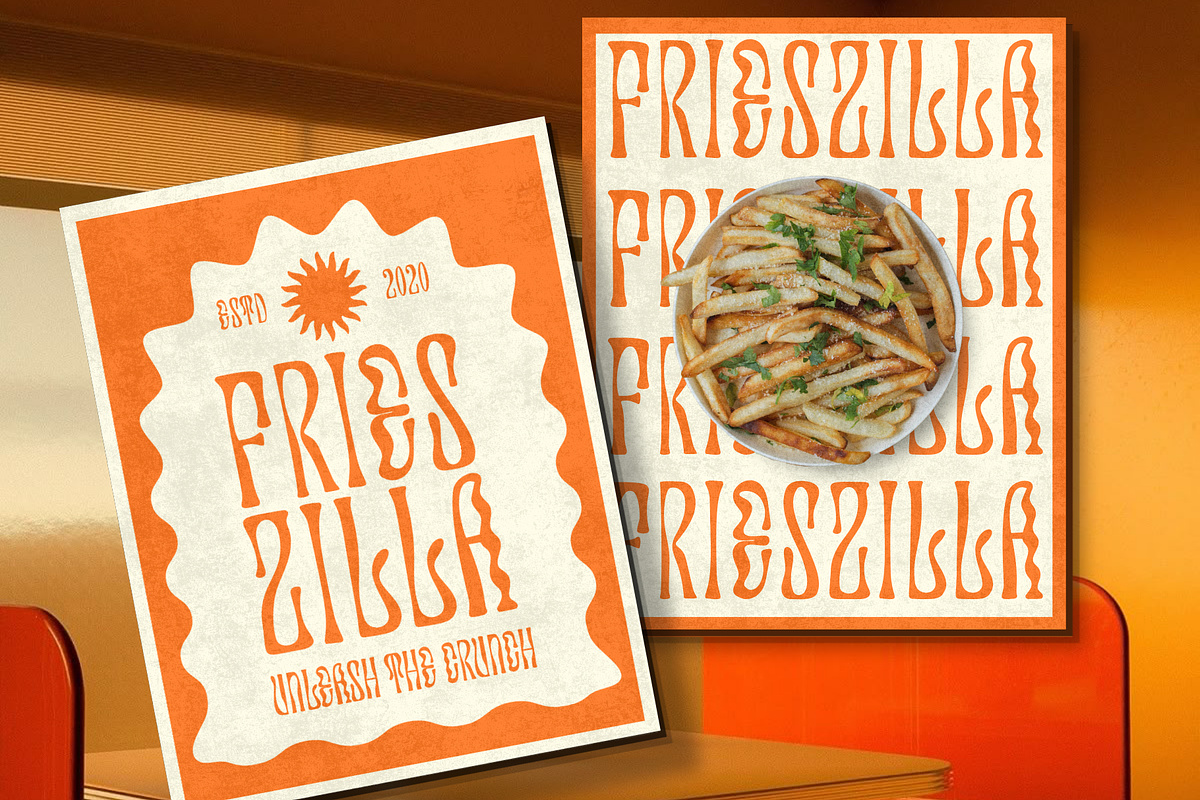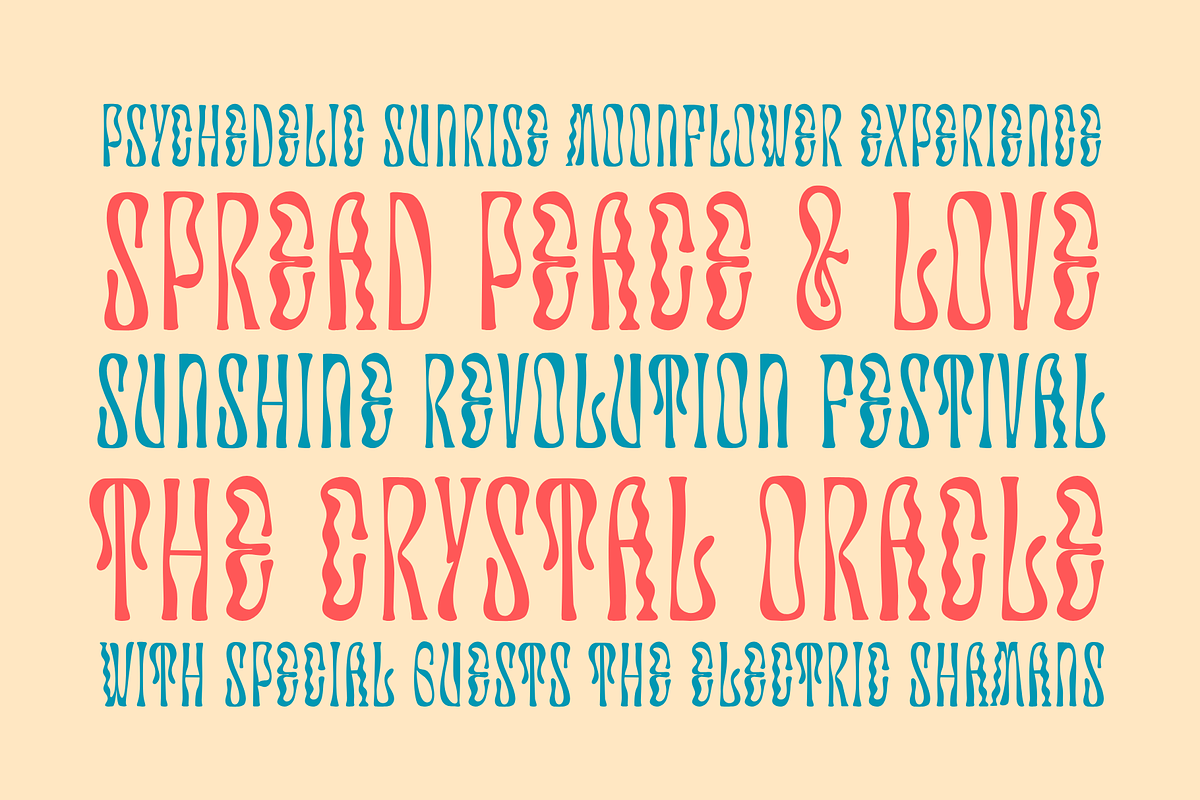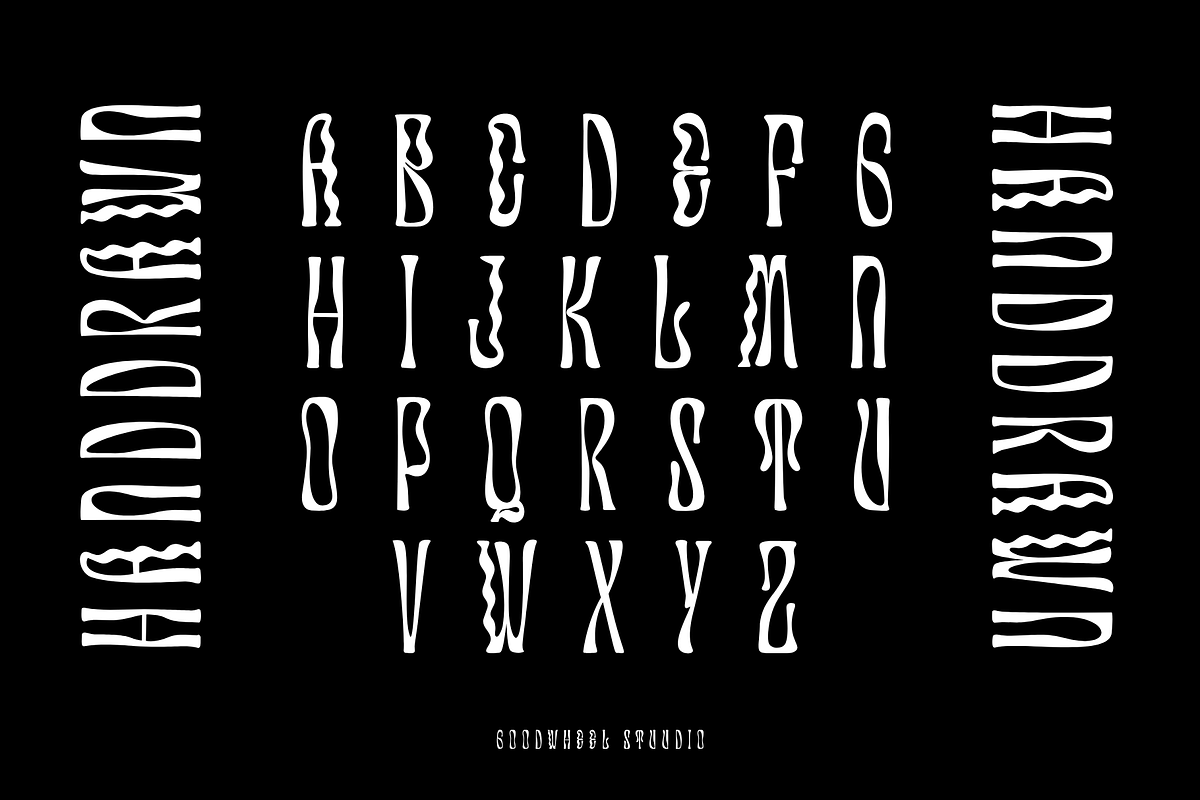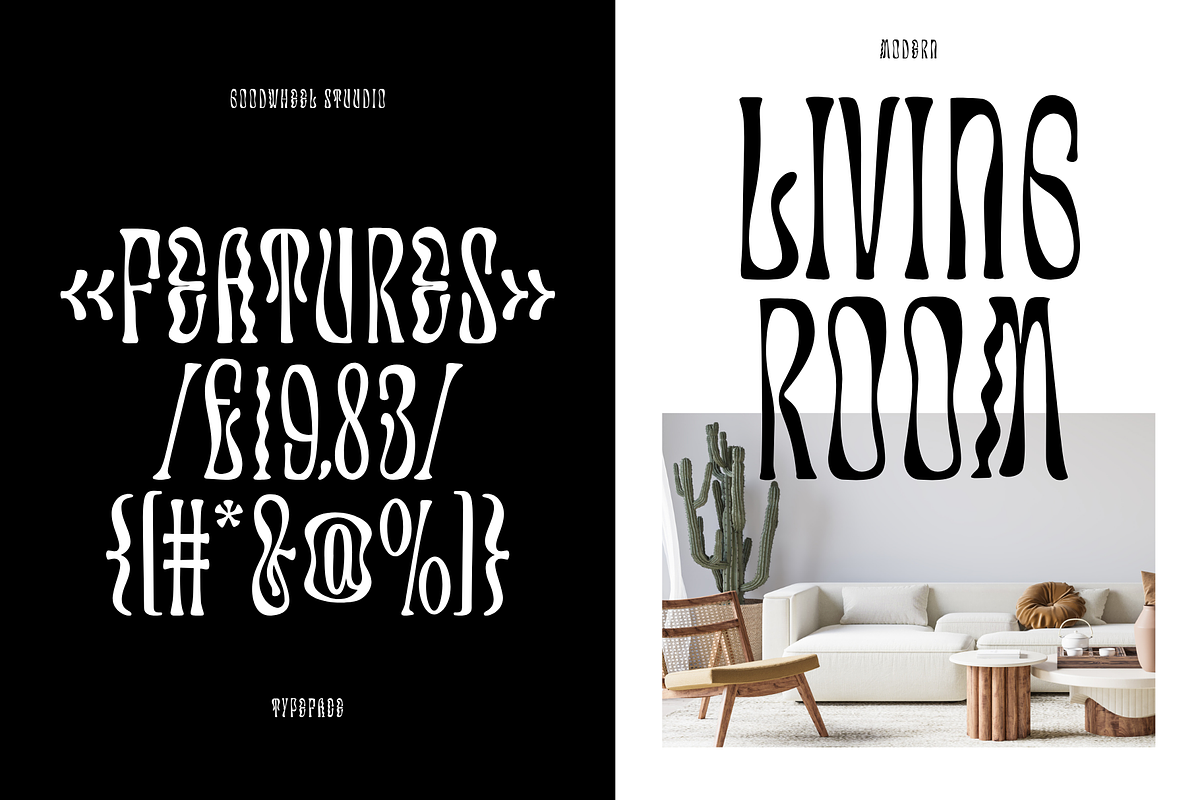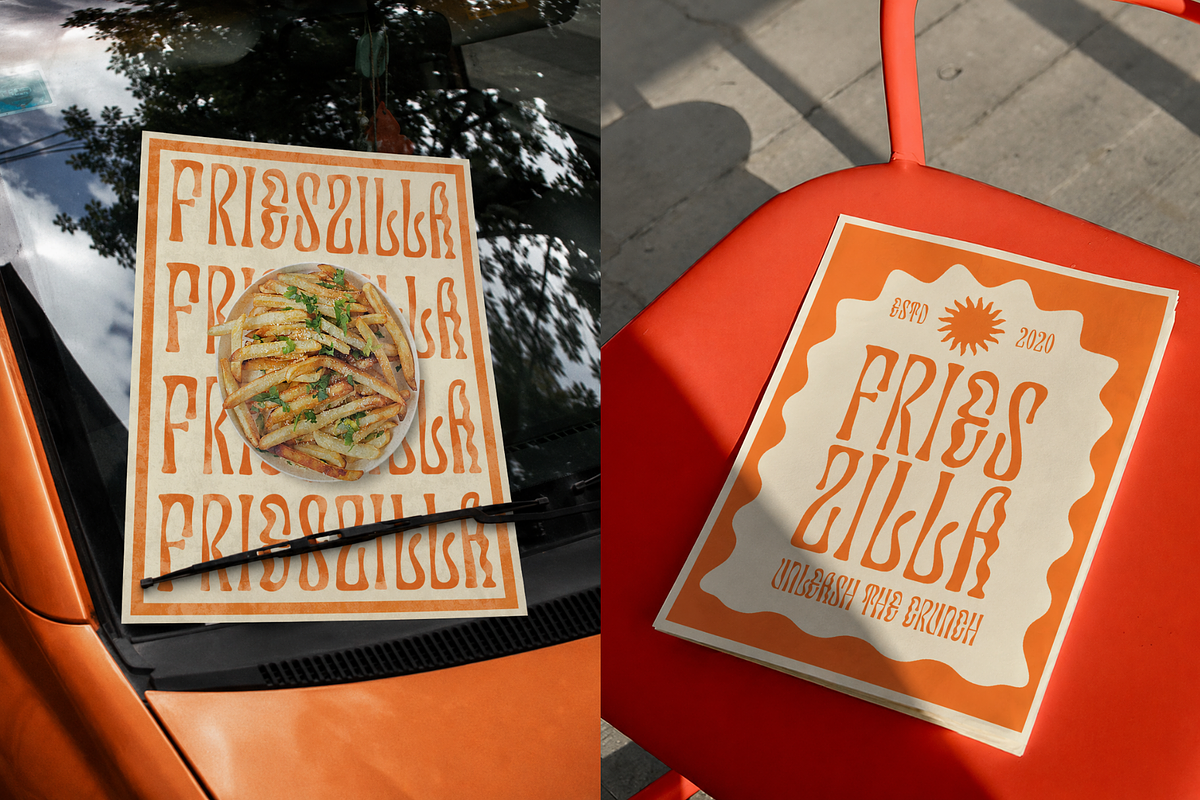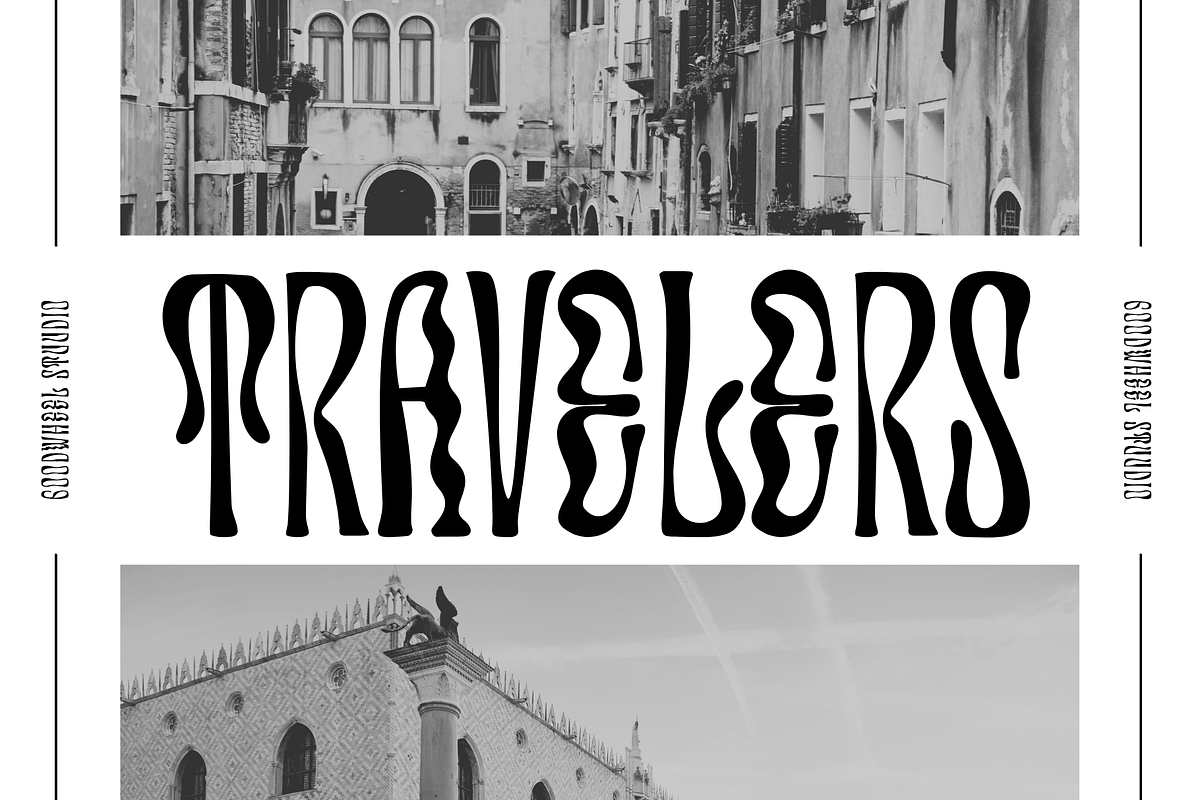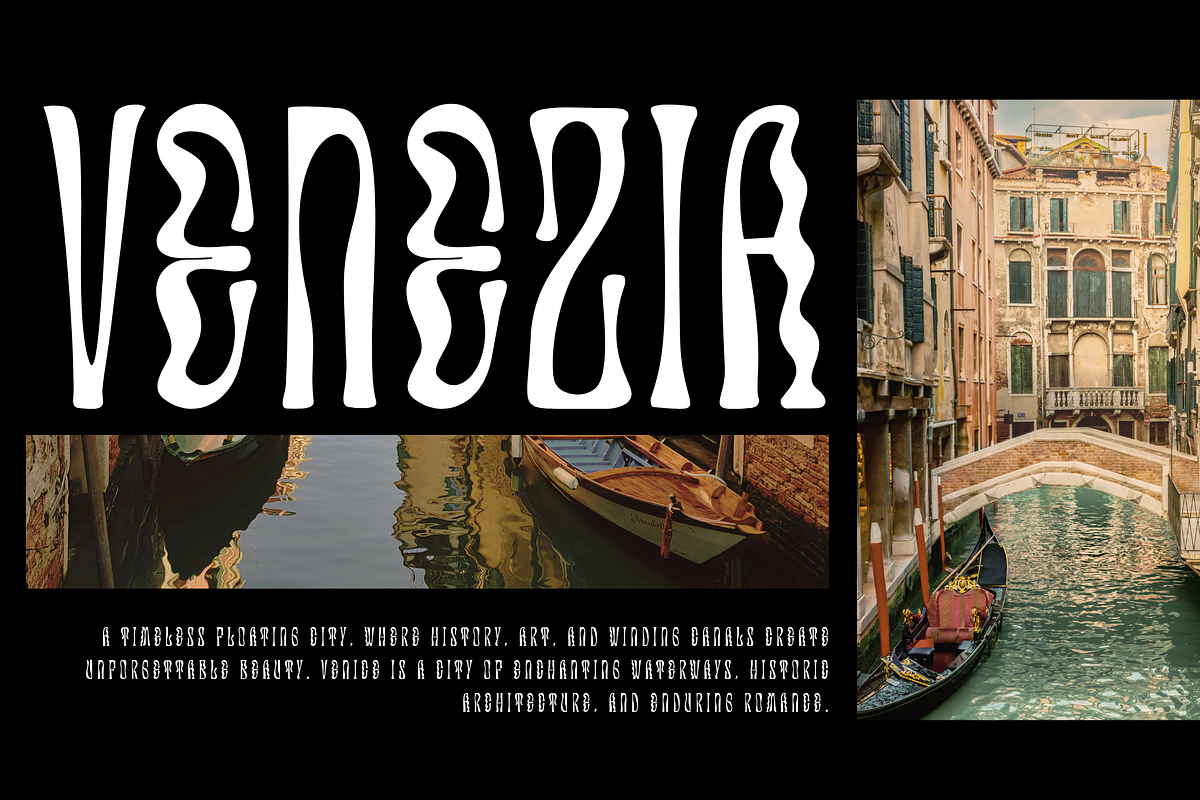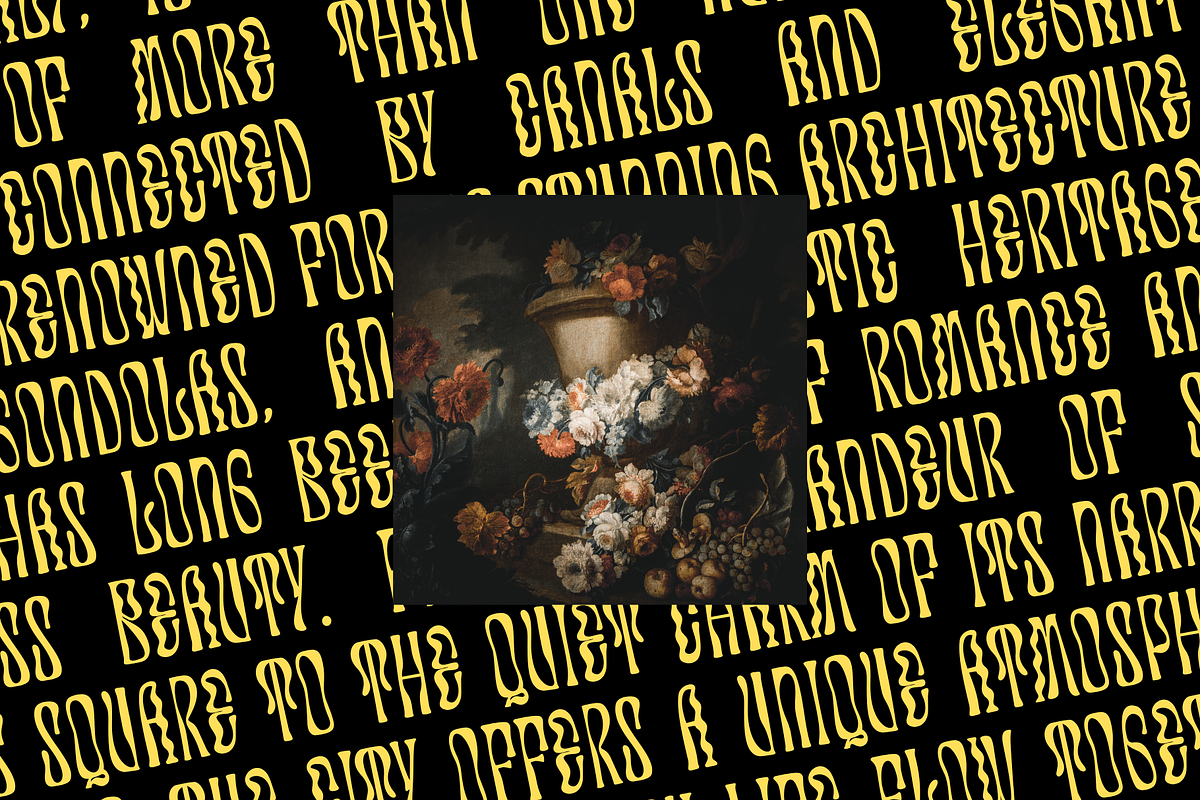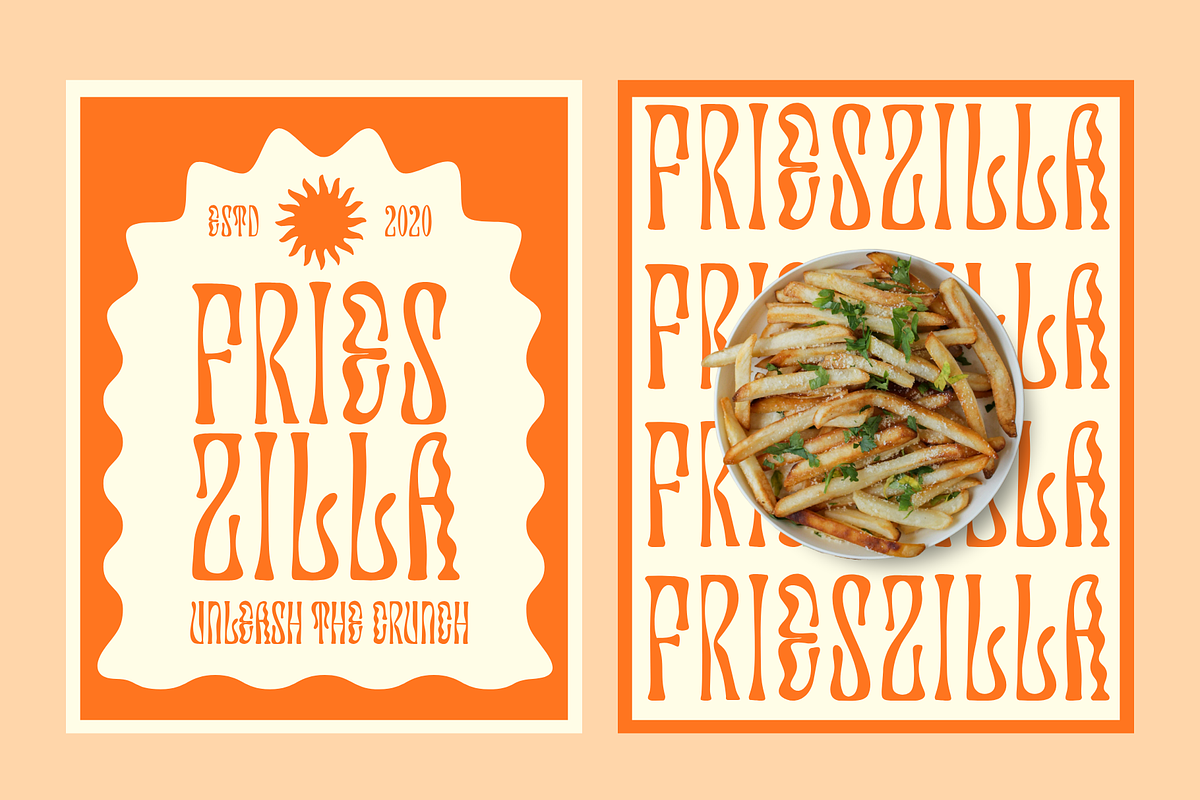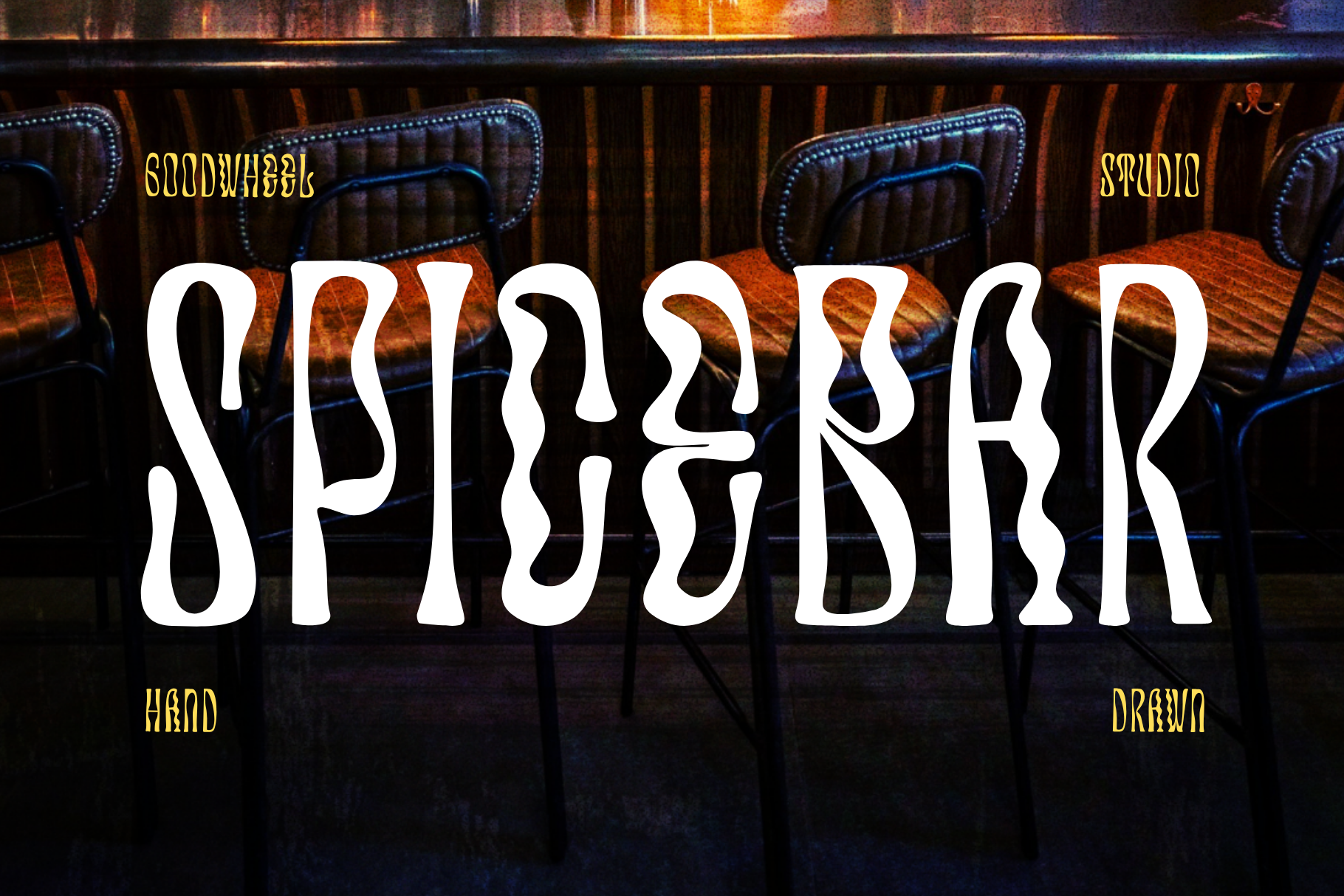
Spicebar | Handdrawn Typeface
Spicebar is a psychedelic retro display font inspired by the expressive visual culture of the 1960s and 1970s. Featuring tall condensed letterforms, organic curves, and distinctive wavy details, it brings a bold, groovy personality to any design. The unique shapes create a hypnotic rhythm that instantly captures attention, making it ideal for standout visual projects. Spicebar works perfectly for music posters, album covers, festival branding, packaging, logos, editorial headlines, apparel, and social media graphics. Combining vintage charm with contemporary creativity, this font helps designers create memorable compositions with a strong artistic character and unmistakable retro appeal.